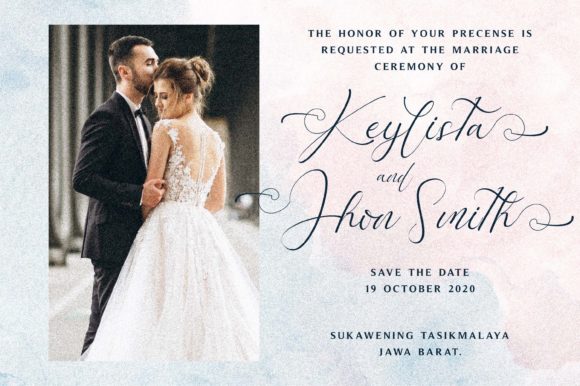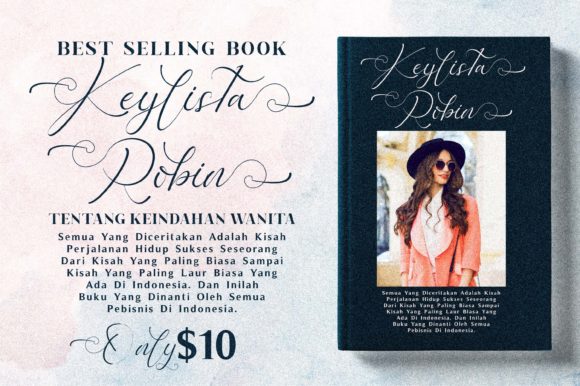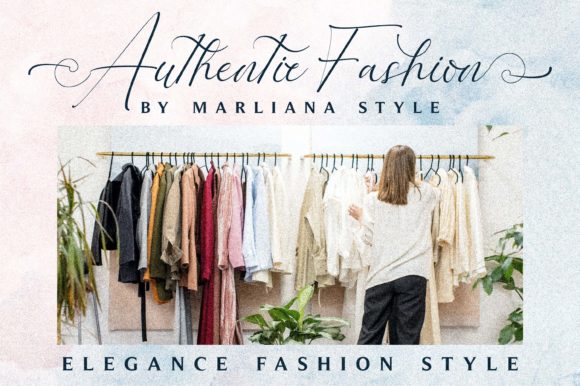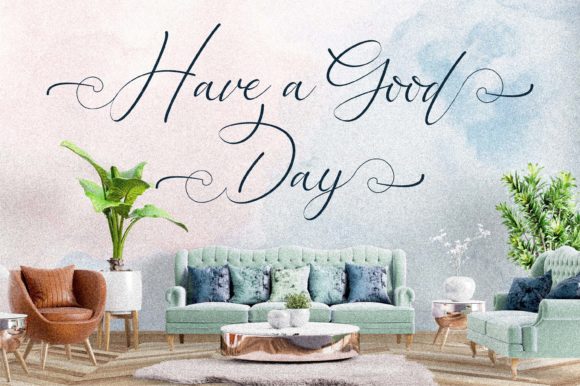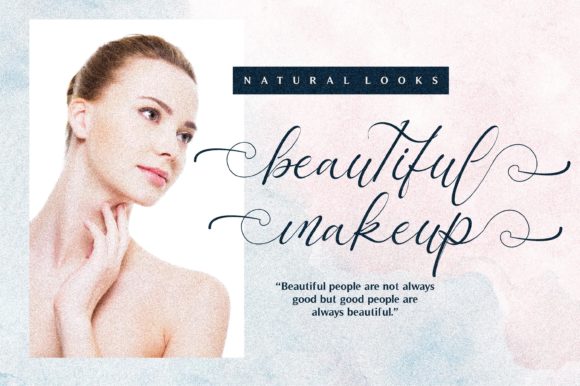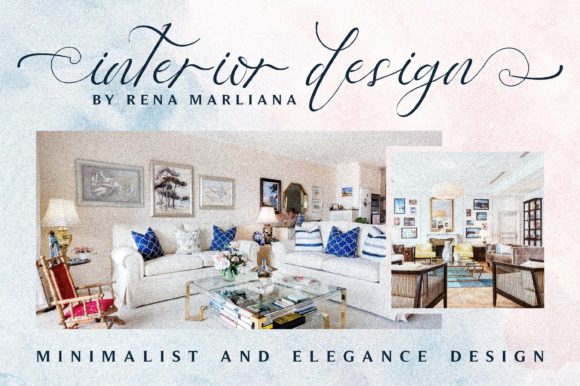
Introduction to Keylista Robin Font
Have you ever been in the midst of a creative project, struggling to find the perfect font to convey the emotions and tone you’re aiming for? I’ve been there too. That’s why I’m excited to share with you one of my favorite design resources: the Keylista Robin Font. This stunning handwritten font is a game-changer for any creative project, from wedding invitations to business cards, and everything in between.
With its sleek and elegant design, Keylista Robin Font adds a touch of sophistication and personality to any design. And the best part? It’s PUA encoded, making it incredibly easy to access all of the glyphs and swashes you need to create unique and eye-catching designs.
Key Features of Keylista Robin Font
- Unique Hand-Drawn Design: Keylista Robin Font features a distinctive, hand-drawn style that adds a touch of personality to any creative project.
- Multi-Layered Design: Keylista Robin Font features a multi-layered design, allowing for intricate details and a level of customization that’s hard to find in other fonts.
- Resolution-Independent: With a resolution-independent design, this font looks great at any size, making it perfect for use in a variety of creative projects, from business cards to billboards.
Honest Review: Keylista Robin Font
I recently stumbled upon the Keylista Robin Font while searching for a design resource for my creative project. The first thing that caught my attention was the high quality and unique design of this font. It’s definitely a great addition to any designer’s toolkit.
Here are some things that work well with the Keylista Robin Font:
- It has a beautiful, elegant design that’s perfect for creating a sophisticated look.
- The font may not be suitable for use in body text due to its decorative nature.
- It’s not a highly legible font, so it may not be the best choice for large blocks of text.
Overall, I’m quite impressed with the Keylista Robin Font. Its unique design and high quality make it a valuable resource for any designer. Just be sure to use it judiciously, and it will definitely add a touch of elegance to your creative project. ✨
Keylista Robin Font is perfect for a variety of creative projects, including social media graphics, blog posts, and presentations. Its modern design and transparent background make it ideal for overlaying on images or other design elements.